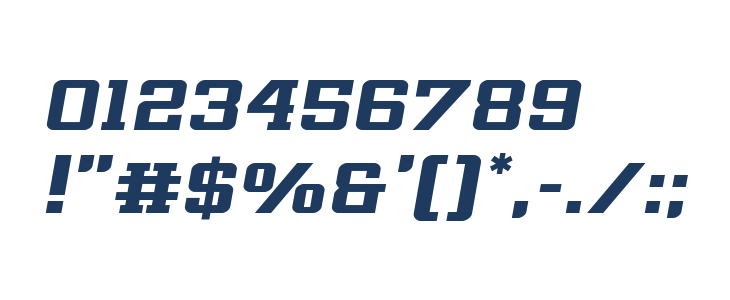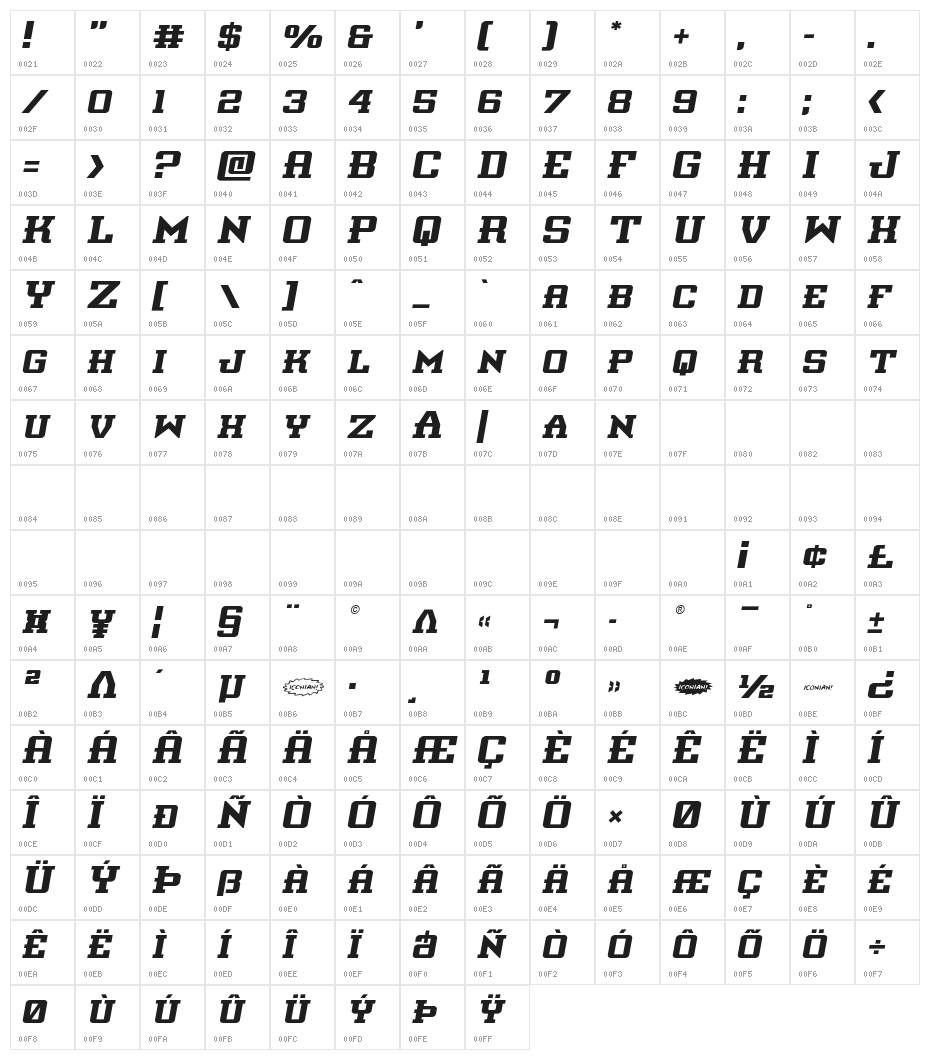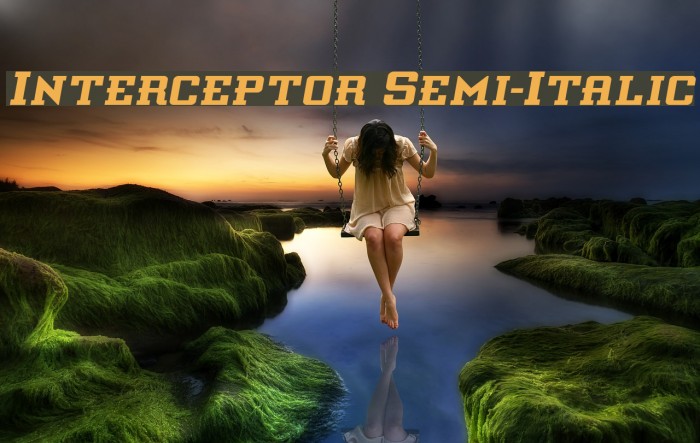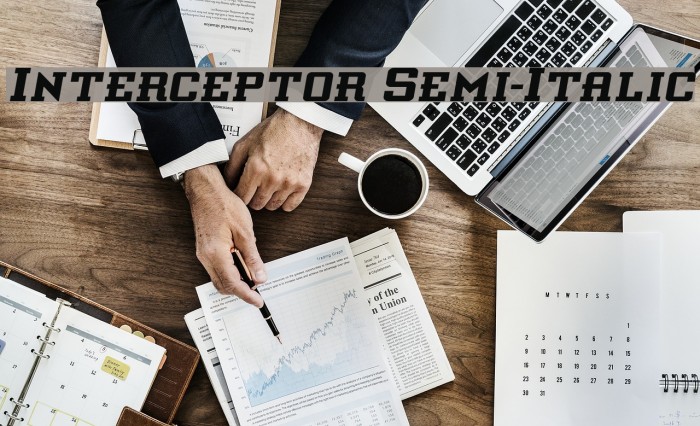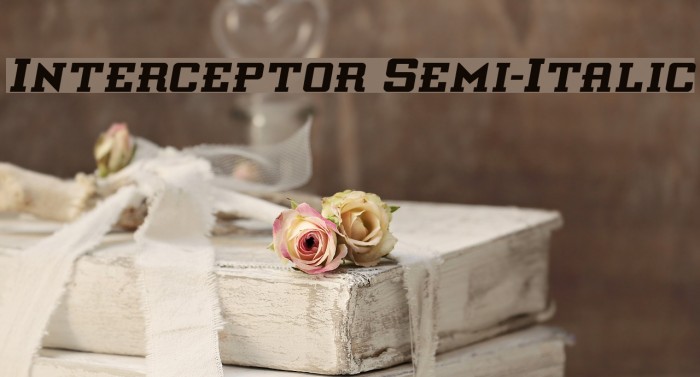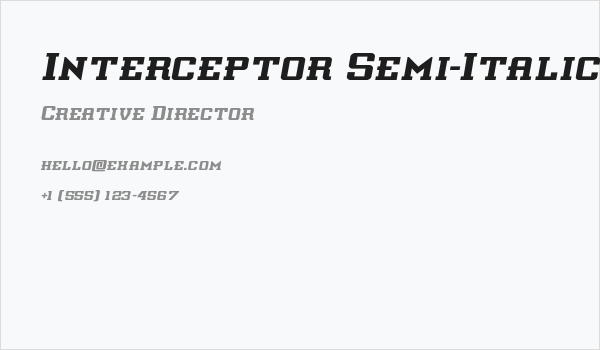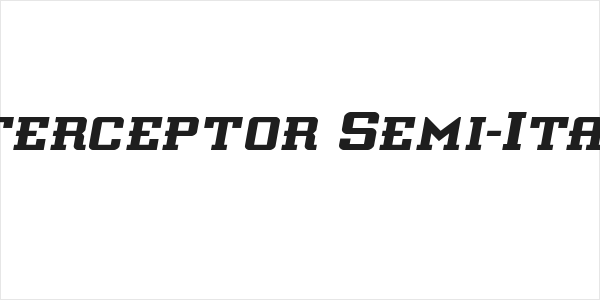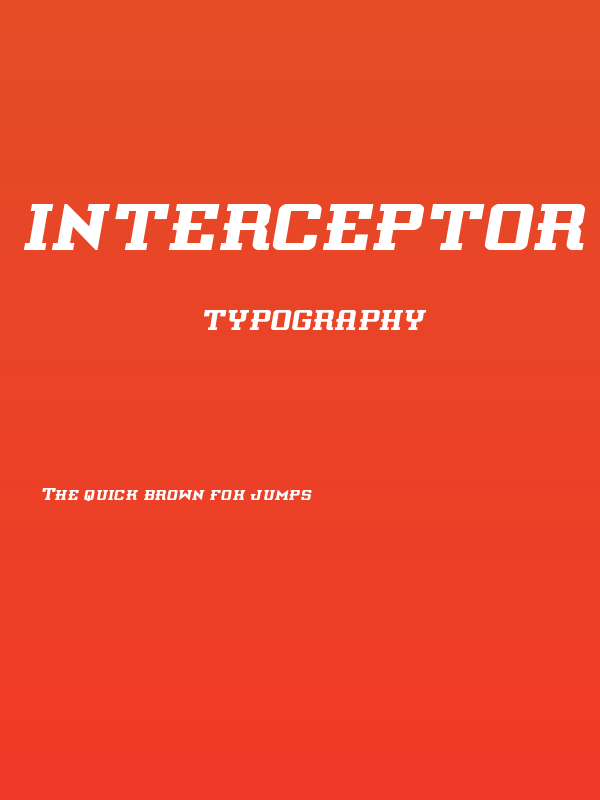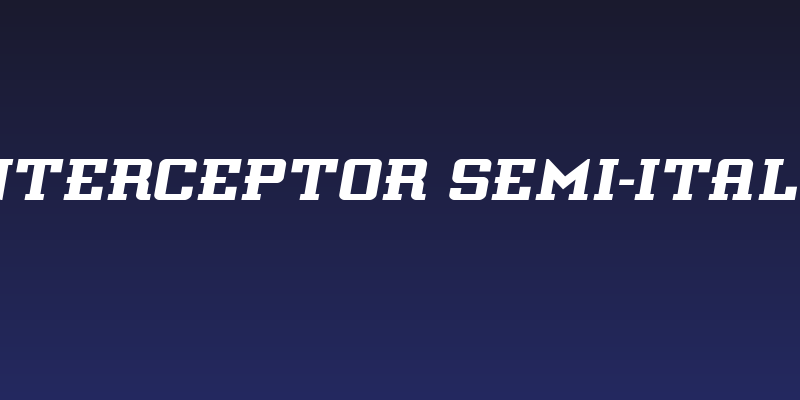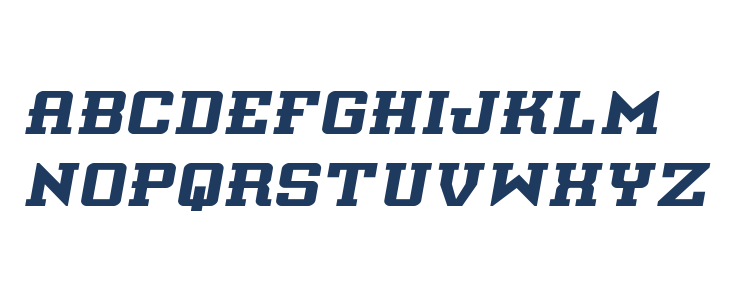
Interceptor Semi-Italic Font
Interceptor Semi-Italic Description
This font features a bold, semi-italic style with a strong presence and a slightly slanted orientation. The characters are designed with a modern, sporty aesthetic, making them ideal for dynamic and energetic designs. The uppercase letters are prominent and assertive, while the lowercase letters maintain a consistent style that complements the overall look. The numerals are equally bold and clear, ensuring readability. Special characters are included, maintaining the same stylistic approach. The font's design is suitable for projects that require a bold statement, such as sports branding, posters, and headlines.
| Proposed Projects | Ideal for sports branding, posters, headlines, and dynamic design projects. |